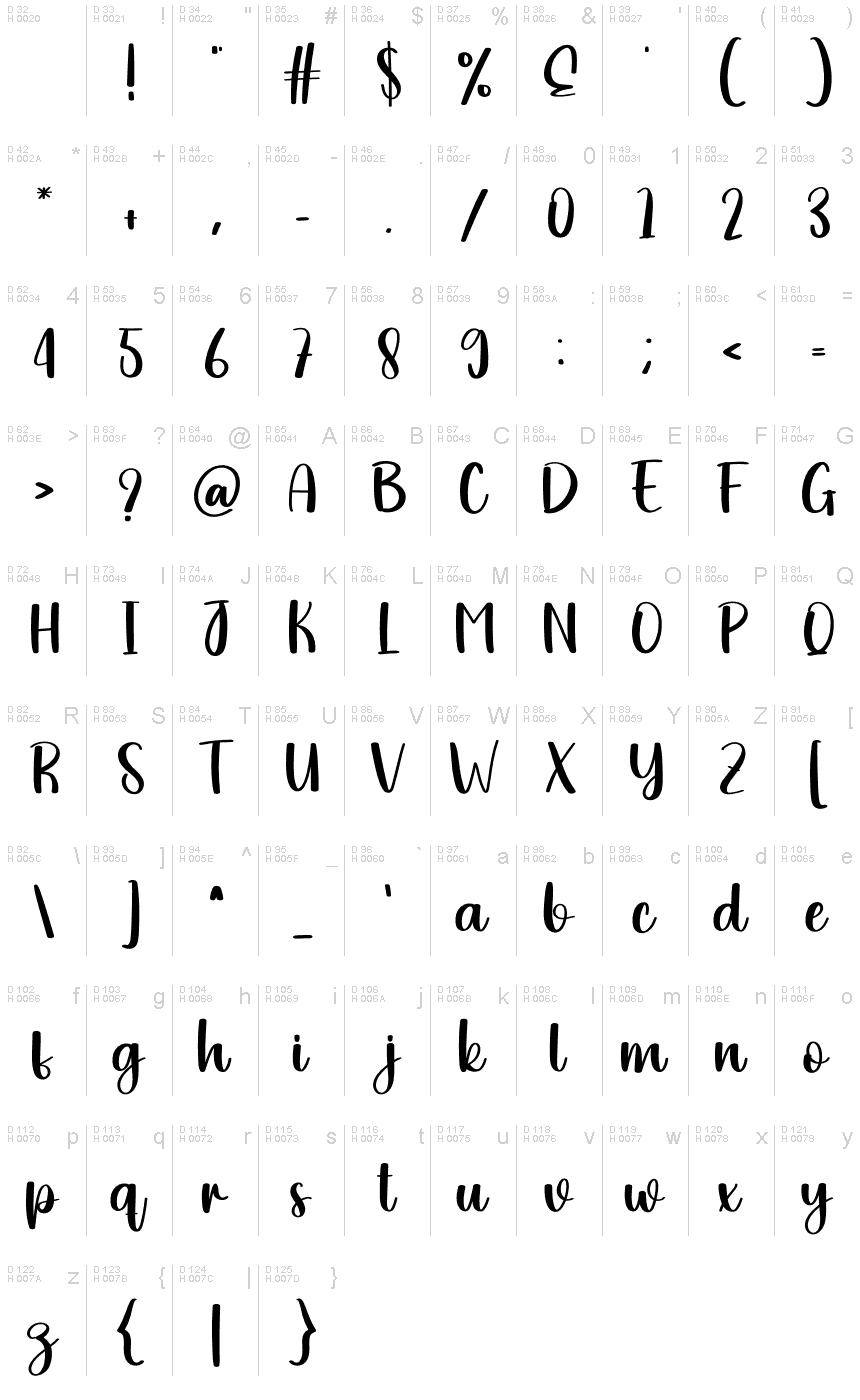
Wind
Wind, a handwritten font crafted by Scratchones, exudes a sense of personal touch and flair. With its fluid curves and varying stroke weights, Wind captures the essence of spontaneous penmanship while maintaining legibility and charm. The aesthetic appeal lies in its organic structure—each letter appears as though it were penned with care and individuality.
The font's casual elegance makes it an excellent choice for designs seeking to convey intimacy or creativity. Whether applied to branding materials, invitations, or editorial content, Wind's distinctive style enhances the narrative with its authentic handwritten quality. Its suitability extends to digital platforms as well, where it can add a humanistic element to otherwise static environments.